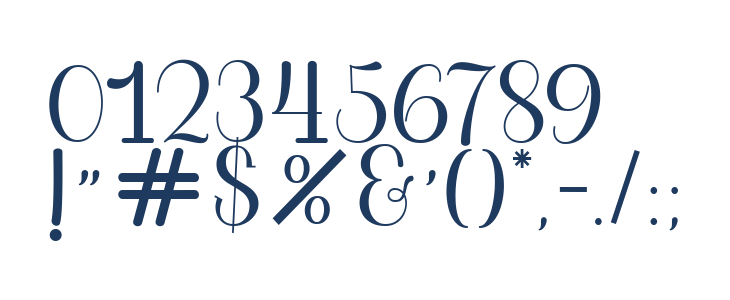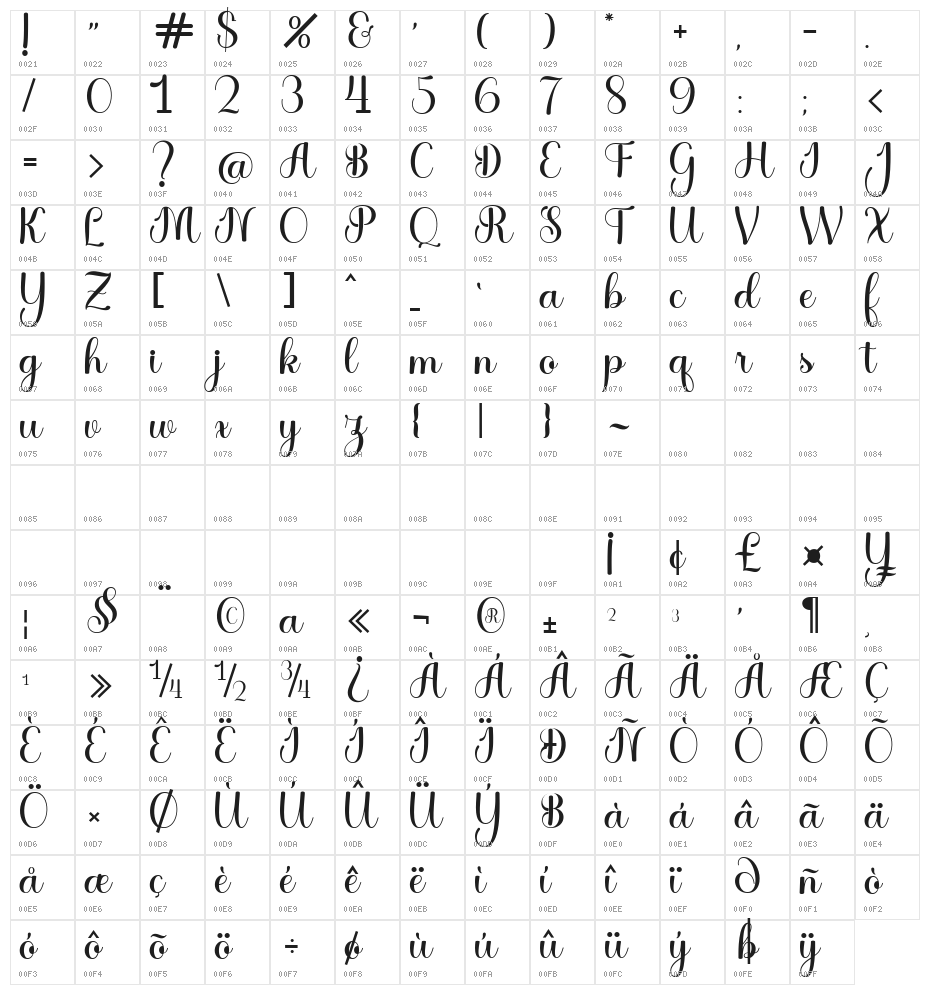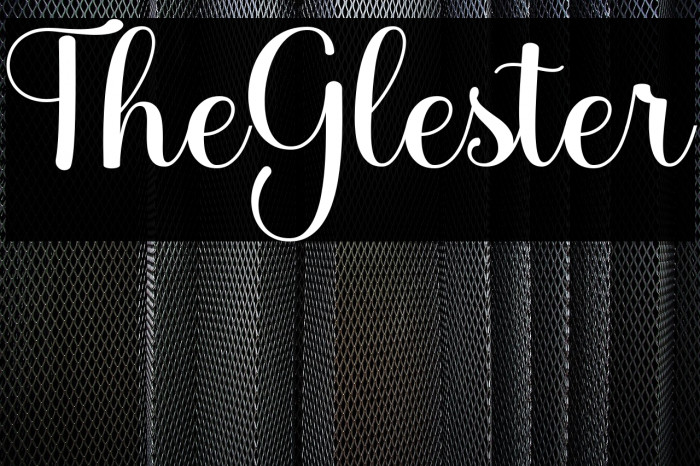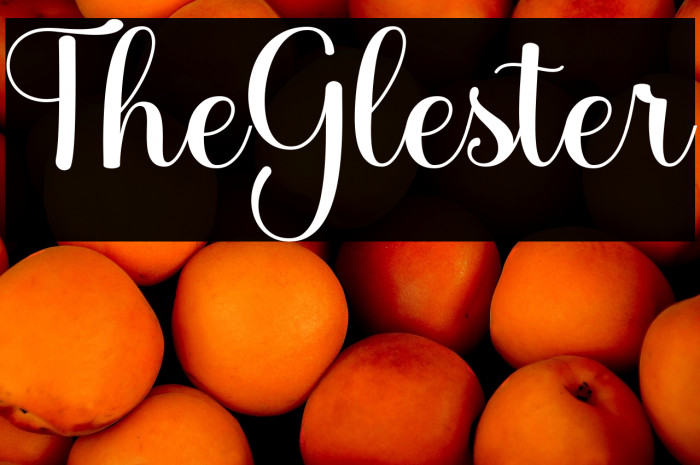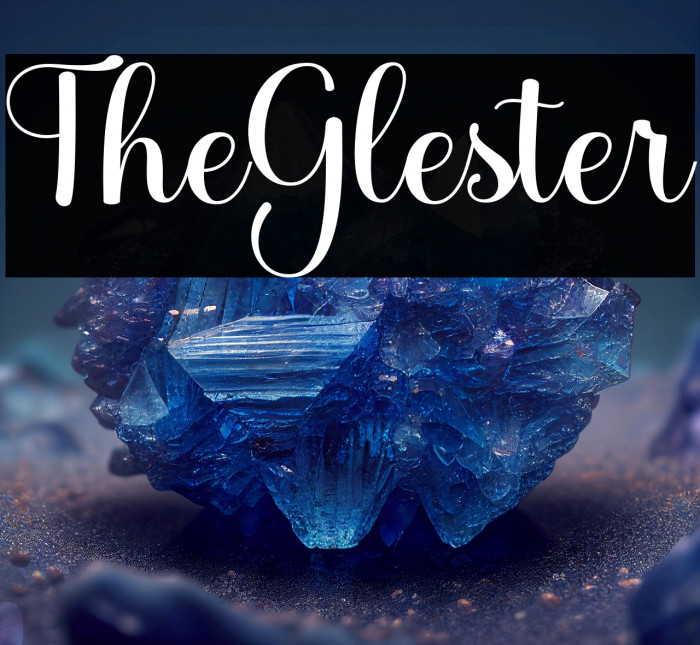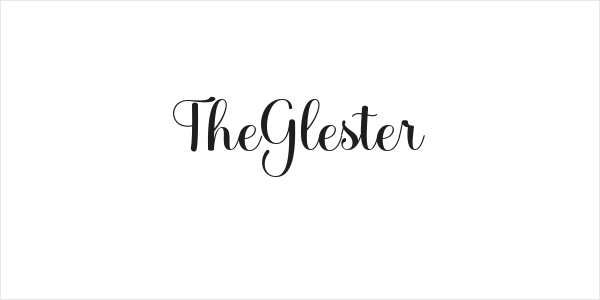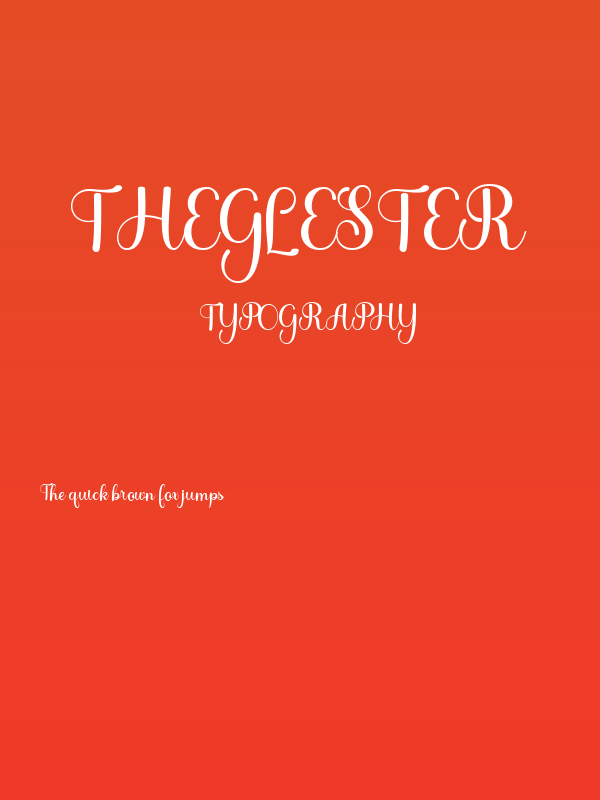
TheGlester Font
TheGlester Description
This font exudes a charming and elegant script style, characterized by its fluid, cursive strokes and graceful curves. The uppercase letters are bold and sweeping, with a consistent flow that adds a touch of sophistication. The lowercase letters maintain a harmonious balance, with gentle loops and a slightly playful demeanor. Numbers are crafted with the same attention to detail, ensuring readability while maintaining the font's overall aesthetic. Special characters are seamlessly integrated, offering versatility for various design needs. The font's design is perfect for adding a personal and stylish touch to any project.
A charming and elegant script font with fluid, cursive strokes from Regular fonts.
- Proposed Projects: Ideal for wedding invitations, greeting cards, branding, and elegant packaging.
- Overall Style: Elegant
- Use Case: Logos, Invitations, Decorative text